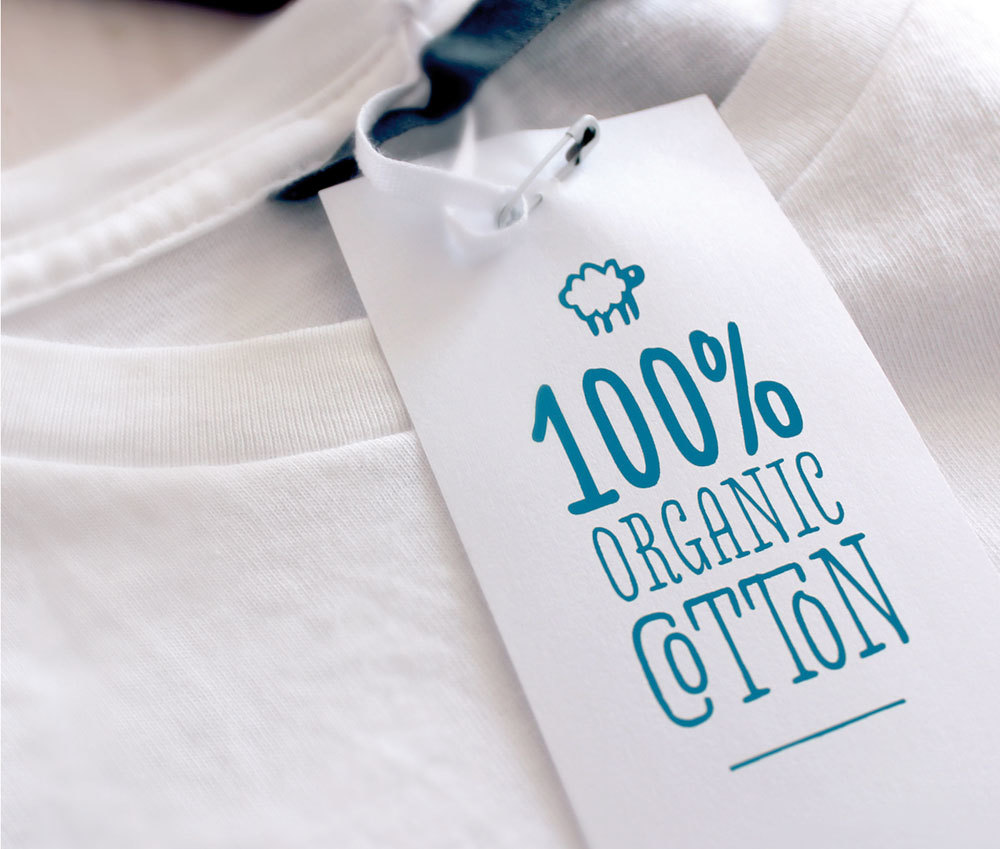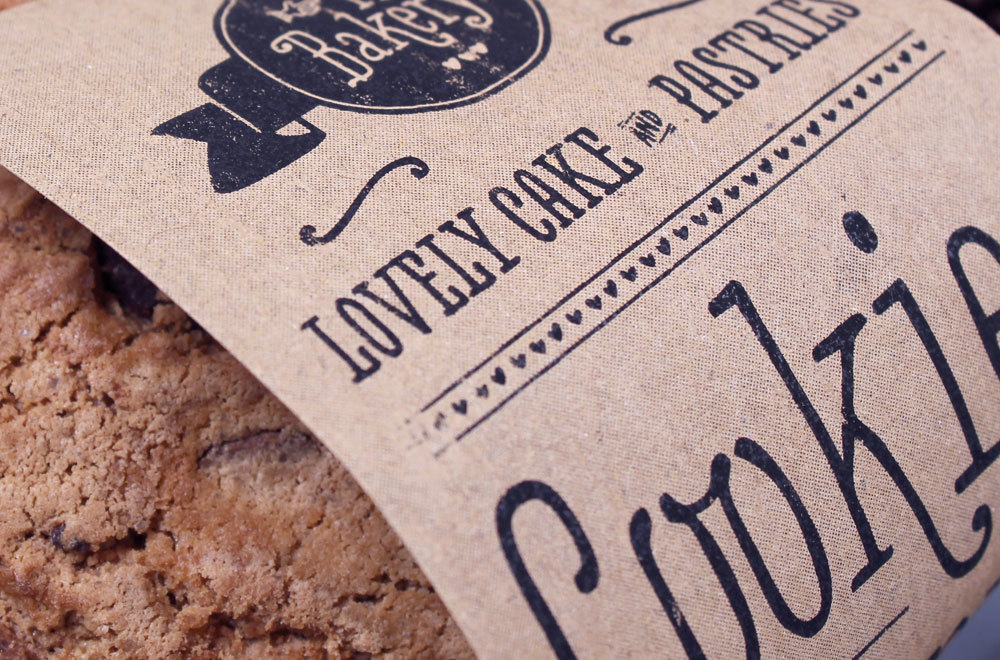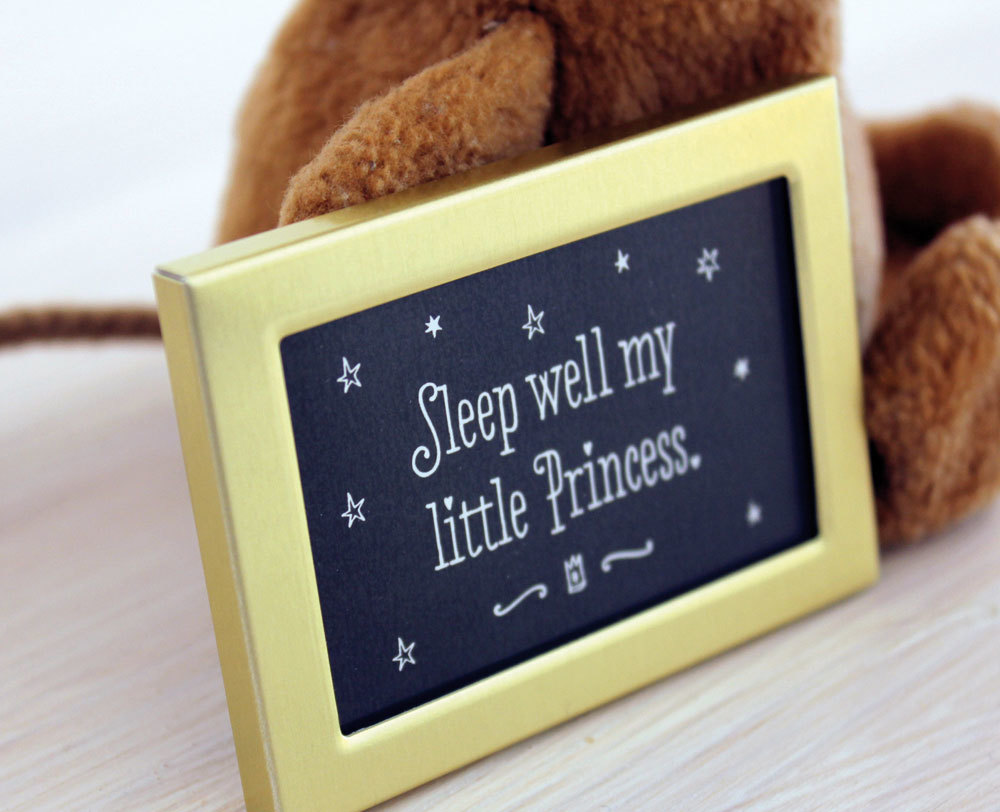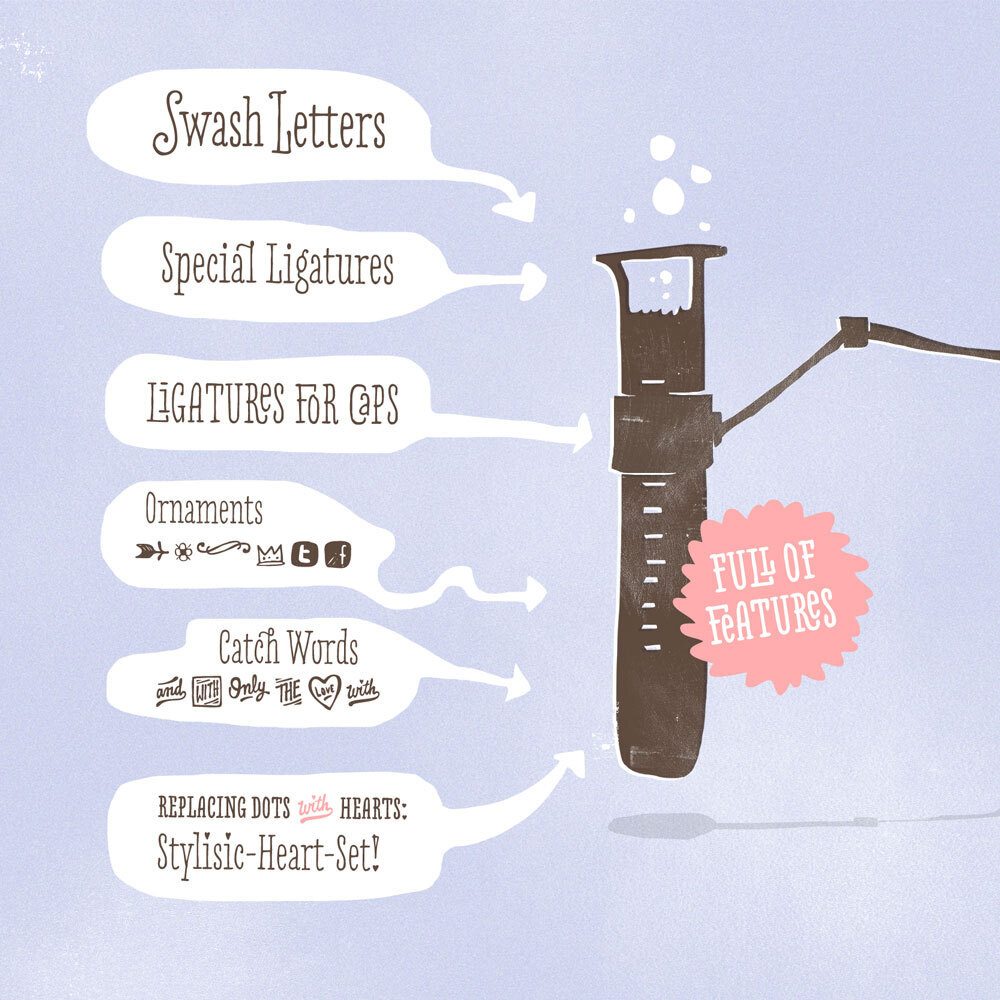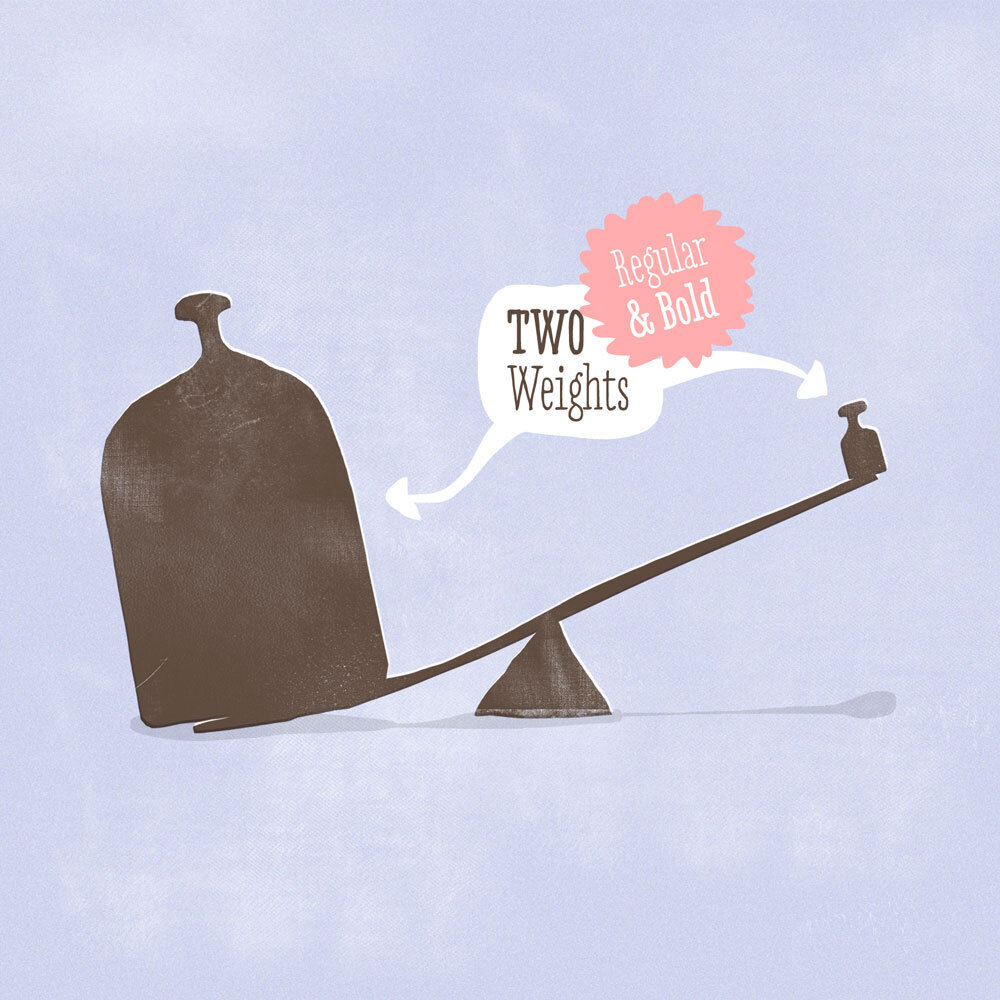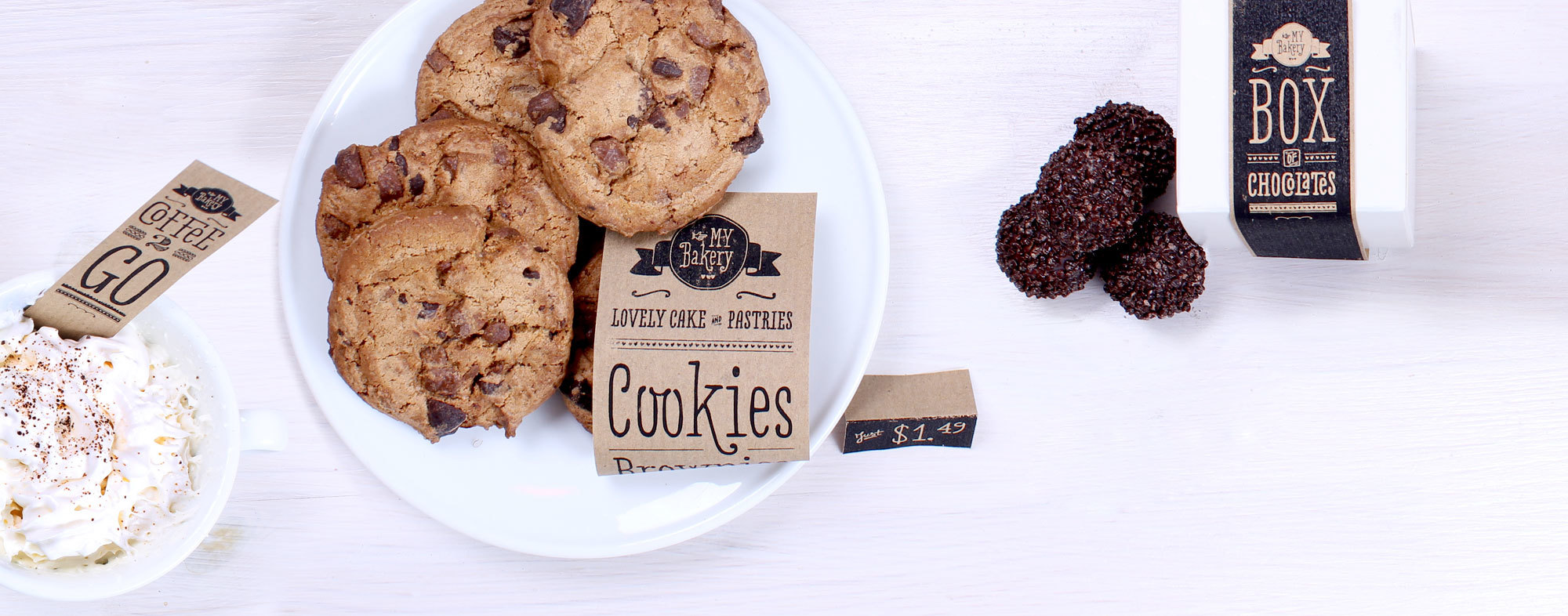
Love Potion
Some call it a lovely, little, hand-drawn family with serifs – others a holiday.
Sometimes it is so refreshing to create something simple, easy and beautiful, which does not take several months of development. “Love Potion was a small, delightful project giving me the freedom of playing around with letterforms and pens. In contrary to a big, precise super family where every stem has to be measured exactly.” says Hannes von Döhren about Love Potion, and adds: “… a hand-drawn typeface feels like a holiday, where you can just let yourself go.”
A hand made typeface, spreading the love
Love Potion
I just took a pen and …
When I drew the letters for the Love Potion typeface, I just felt easy and suddenly the letters where there. I created them when I was in this special positive mood and you can see this all over the typeface. Nevertheless this font family is visually and technically on a high professional level. The three fonts include a complete alphabet with an european extended character set and several extravagant OpenType features like Ligatures, Swash Letters, Catchwords, Arrows and Borders – just to name a few.
Love Potion in use
OpenType Features — or what else you can do with it, besides designing your wedding invitation.
A font of today’s needs has to include more than just the alphabet and some punctuation. Besides a big number of accented letters, making sure that the typeface has a good language support, a font should include several features for excellent typographic work joining forces with the layout applications of the time and of course the user. Here is a selection of what this font family has to offer under the hood.
Swashes
Swash Letters are extravagant, flourish versions of letters. They can be used to give special attention to words or headlines. Mostly there are swash alternates for the capital letters which are set in the beginning of a word. Sometimes an „end-character“ can also be swashy to emphasize the end of a word or give it a nice swirl.
Ligatures
If two letters have the nature to collide when used in combination a ligature is needed to solve this unwanted event. Ligatures are especially designed solutions for such letter combinations. This font contains a set of ligatures which are automatically substituted as soon as these letter combinations are typed in.
Discretionary Ligatures
This font contains a set of special ligatures which gives a unique and fany appearance to the words. The discretionary ligatures can be activated through the OpenType feature panel.
Alternates
The stylisitic hearts set is a unique Love Potion feature. With just one OpenType adjustment you can change all dots into hears. Sweet!
Fractions
If fractions are needed anywhere an OpenType code makes sure that if you type any numbers combined with a slash between a fraction will automatically be substituted.
Ornaments
Additionally to the letters this font family contains a big set of catchwords, arrows, borders and other little specials fitting to the characteristics of the typeface. The user can combine text and ornament elements keeping a homogenous design language.